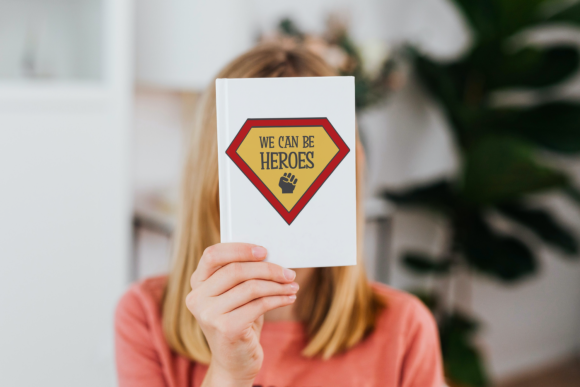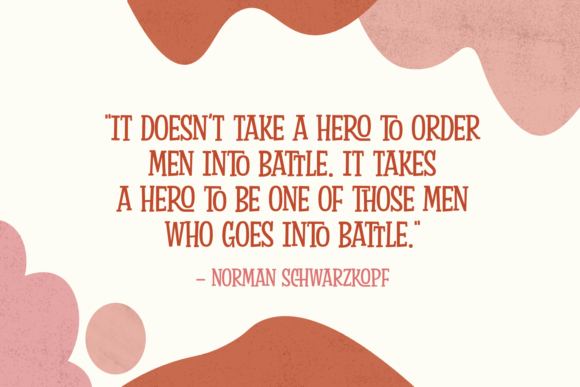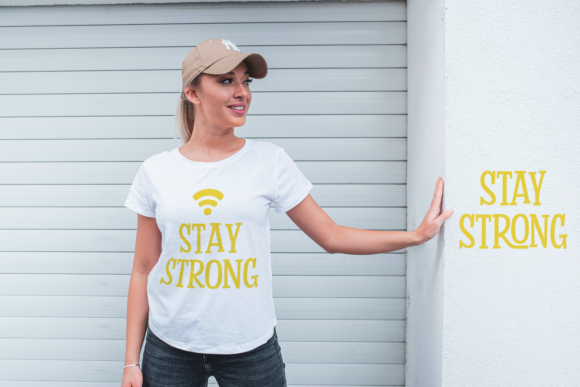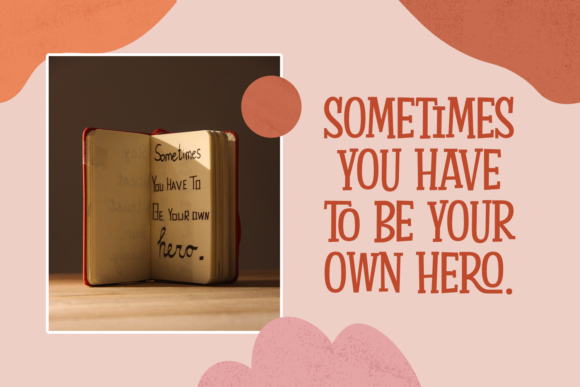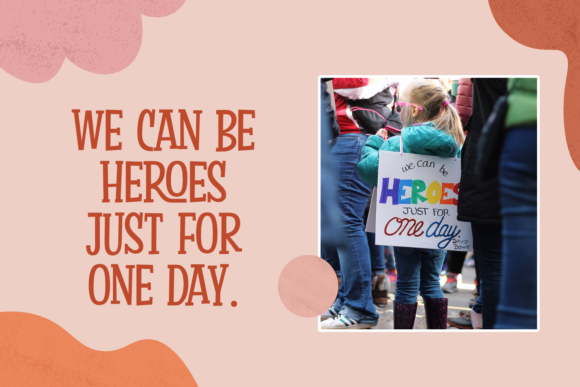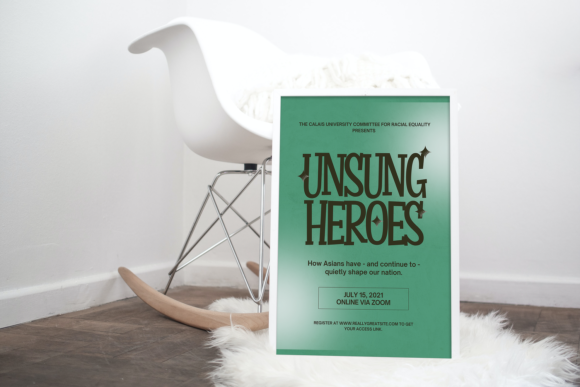
Introduction to Factory Heroes Font
Factory Heroes is a cool, playful and friendly display font.
Whether you use it for cartoon related designs, children games or just any creation that requires a lovely touch, this font will be an amazing choice .